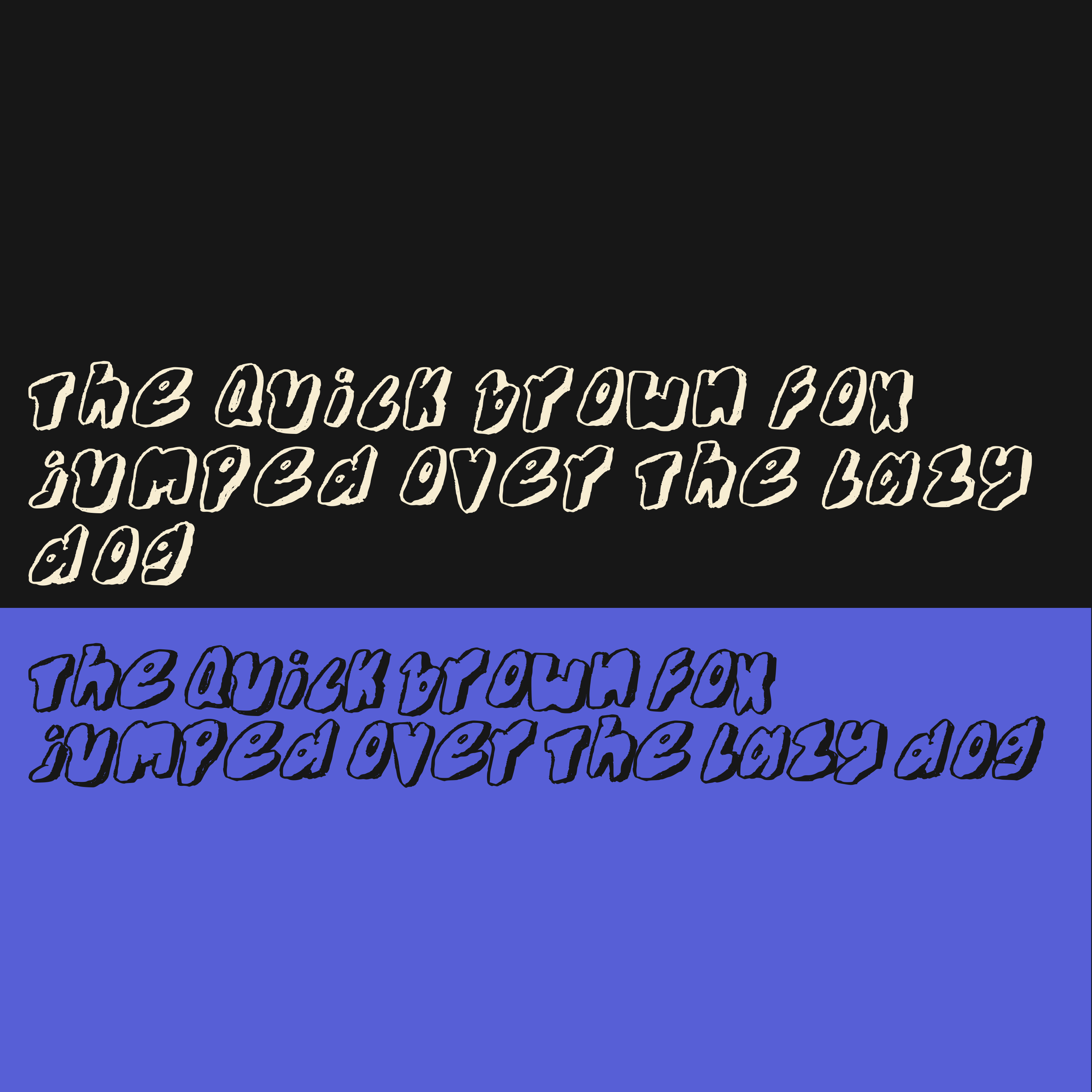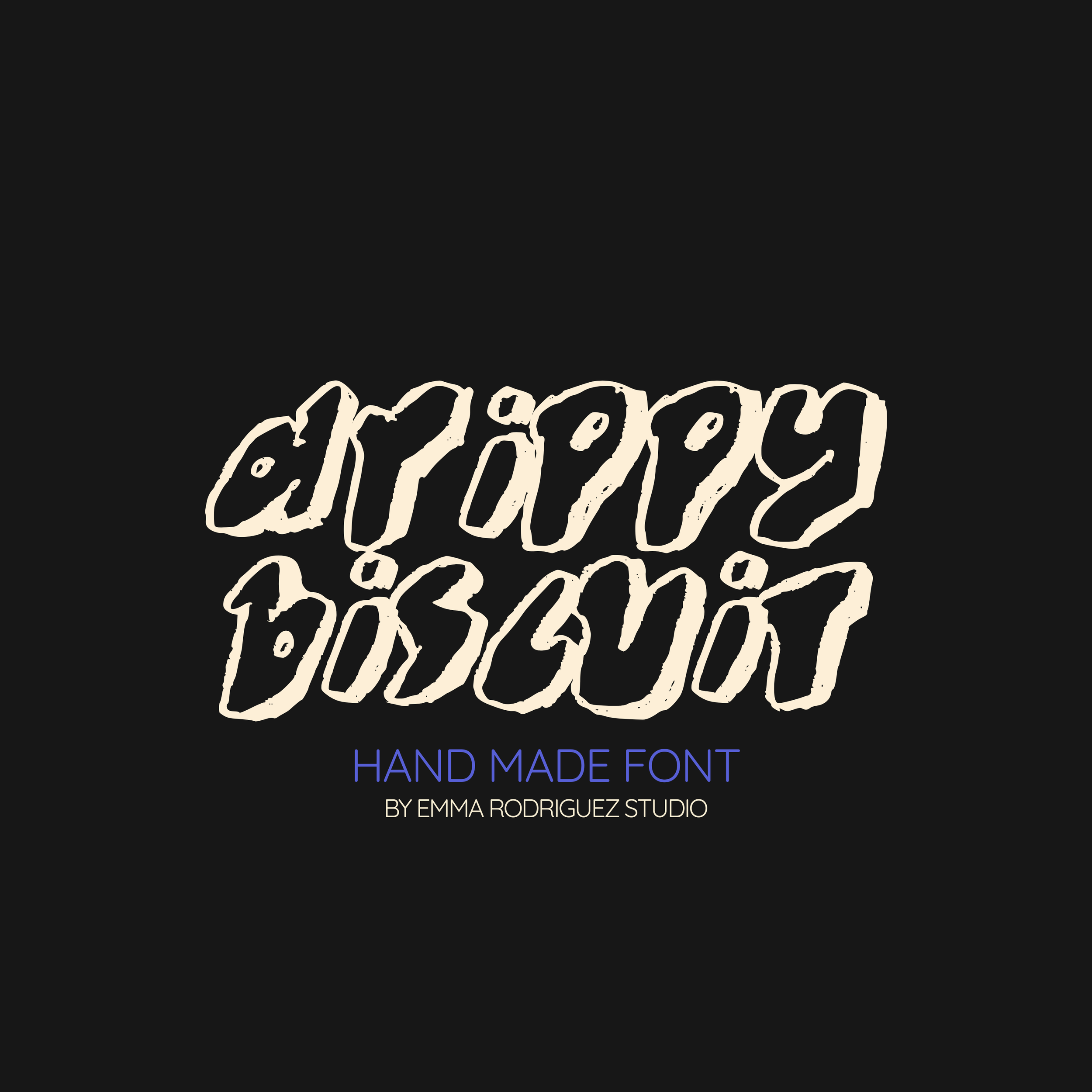
Drippy Biscuit Font - Sketchy Bubble Outline Type
Meet Drippy Biscuit, a thick, sketchy hand drawn display font. With its chunky bubble shapes, wobbly outlines and slightly uneven strokes, this typeface brings a messy playful energy that feels bold, cartoonish and full of personality.
Drippy Biscuit leans into that imperfect hand drawn feel, making it perfect for designs that need attitude without looking overly polished. The letters feel soft, gooey and expressive, giving your titles a fun graphic punch that stands out instantly.
Please note: this font is designed with an outlined style. To achieve the filled look shown in the preview images, the letters will need to be filled manually in software such as Photoshop or similar design programs. Canva will only display the outline version and will not apply the fill.
✨ Posters: Create bold titles that instantly grab attention
✨ Social Media: Add playful chunky lettering to graphics and reels
✨ Branding: Great for fun brands, stickers, merch and creative projects